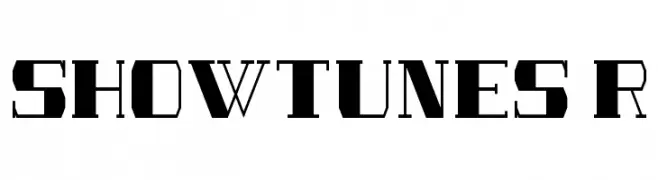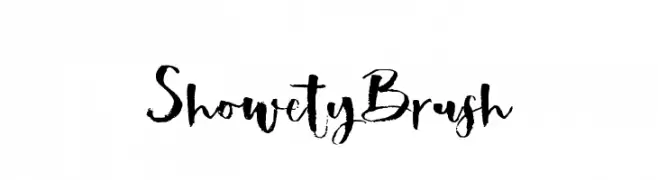
( Fonts by LordFonts )
A decorative dingbat font with diverse, stylized tree icons.
( Fonts by Malre )
A bold, classic serif font with high contrast and elegant details.
( Fonts by Malre )
A high-contrast serif font with elegant, sharp serifs and a classic style.
( Fonts by Sideshow )
A bold, dynamic script font with flowing, hand-drawn calligraphy style.
( Fonts by Fredrick Brennan )
A playful, bold font with a hand-drawn, quirky style.
A decorative architectural font where each character is a unique house or building illustration.
A sophisticated script font with elegant, flowing letterforms.
A bold, playful font with star motifs in each character.
A bold, playful font with star motifs and rounded characters.
A bold, rounded font with a playful and friendly style.
A bold, angular font with a modern and vintage blend.
A bold, decorative font with unique cut-out patterns and an artistic flair.
A bold, geometric stencil font with high contrast and decorative elements.
( Fonts by Namela Type )
No valid font is displayed; only placeholder glyphs are present.
( Fonts by Misti's Fonts )
A decorative font with characters encased in diamond-topped rings, perfect for elegant occasions.
A dynamic italic font with a modern, energetic style and unique character design.
( Fonts by dustBUST - Andreas Nylin )
A geometric outline font with a futuristic and modern aesthetic.
( Fonts by dustBUST - Andreas Nylin )
A modern, geometric outline font with an italic slant, ideal for futuristic designs.
A sleek, futuristic oblique font with geometric precision and clean lines.
( Fonts by Matthew Welch - www.squaregear.net/fonts/ )
A brush-like, calligraphy-inspired font with dynamic strokes and an exotic aesthetic.
( Fonts by David Rakowski )
A bold, decorative font with an artistic, hand-drawn style.